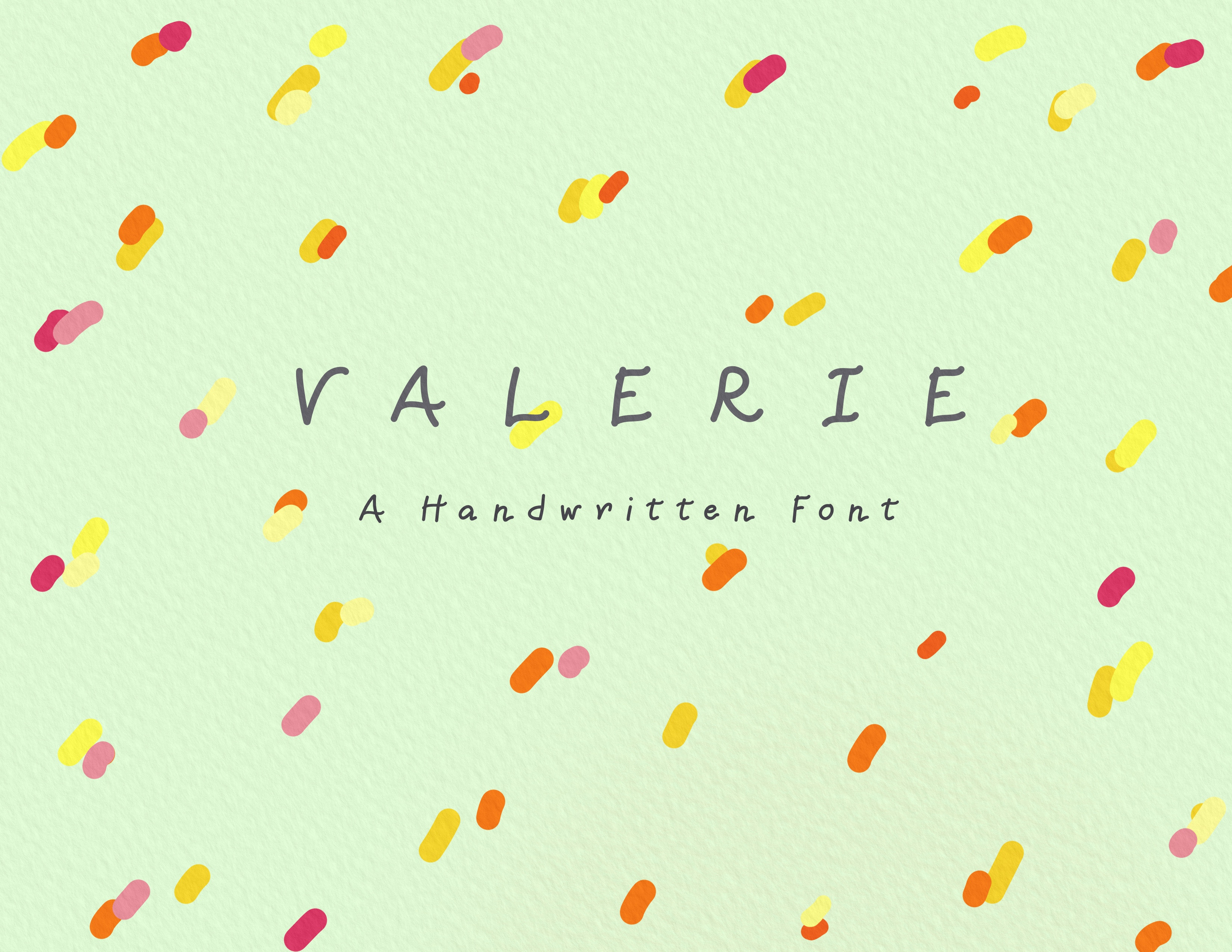
Valerie Handwritten Font
Valerie is a joyful, natural and adaptable handwritten font. No matter the topic, this font will be an incredibly asset to your fonts’ library, as it has the potential to elevate any creation.